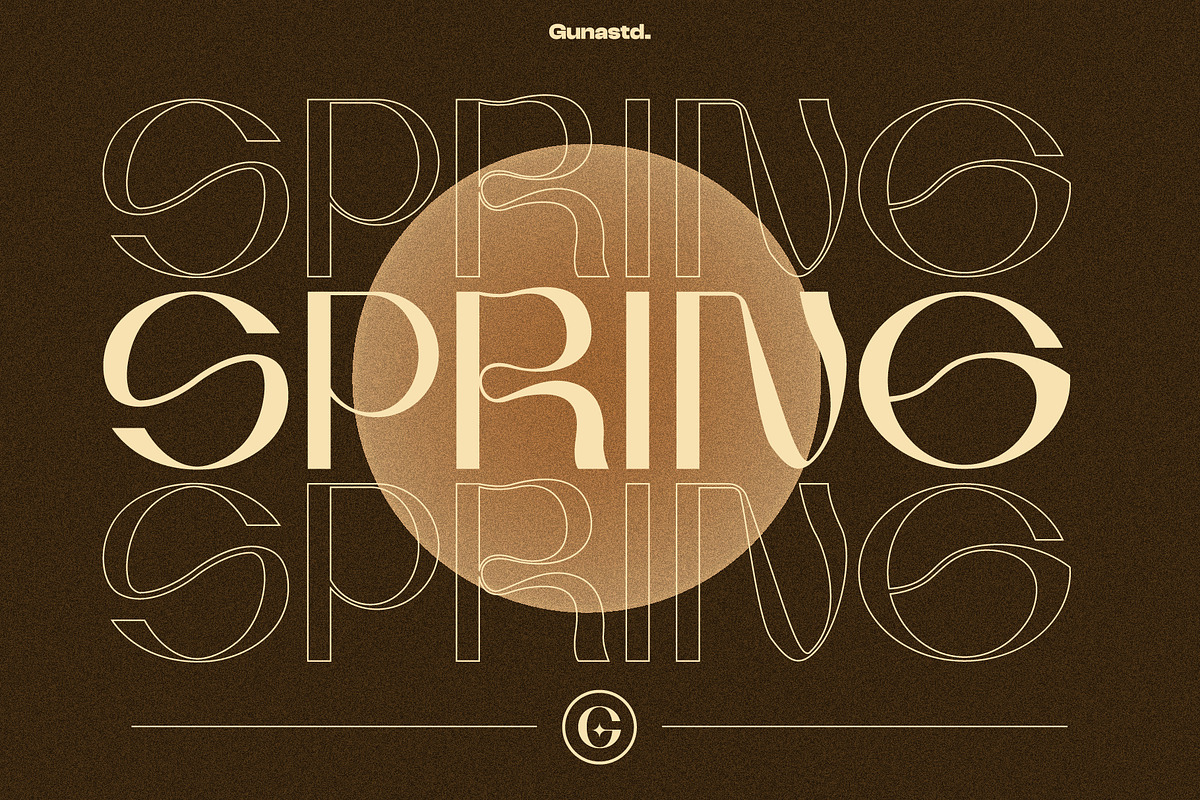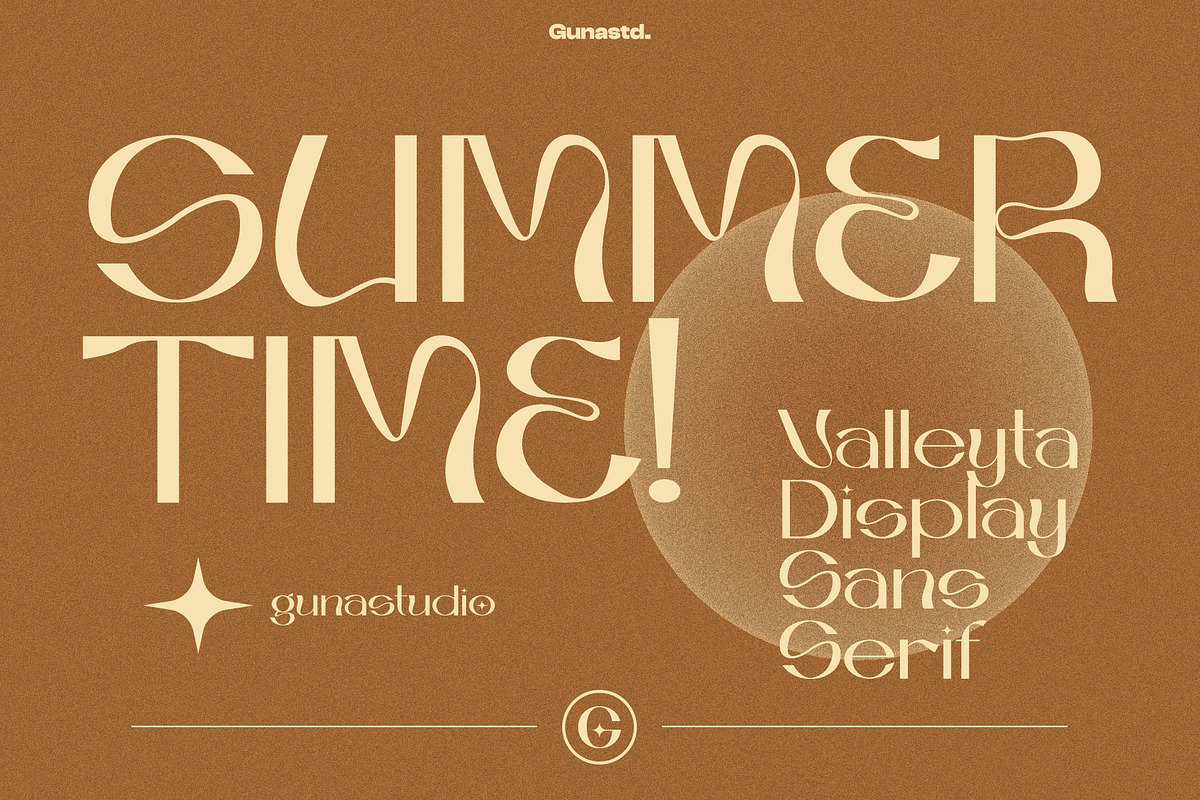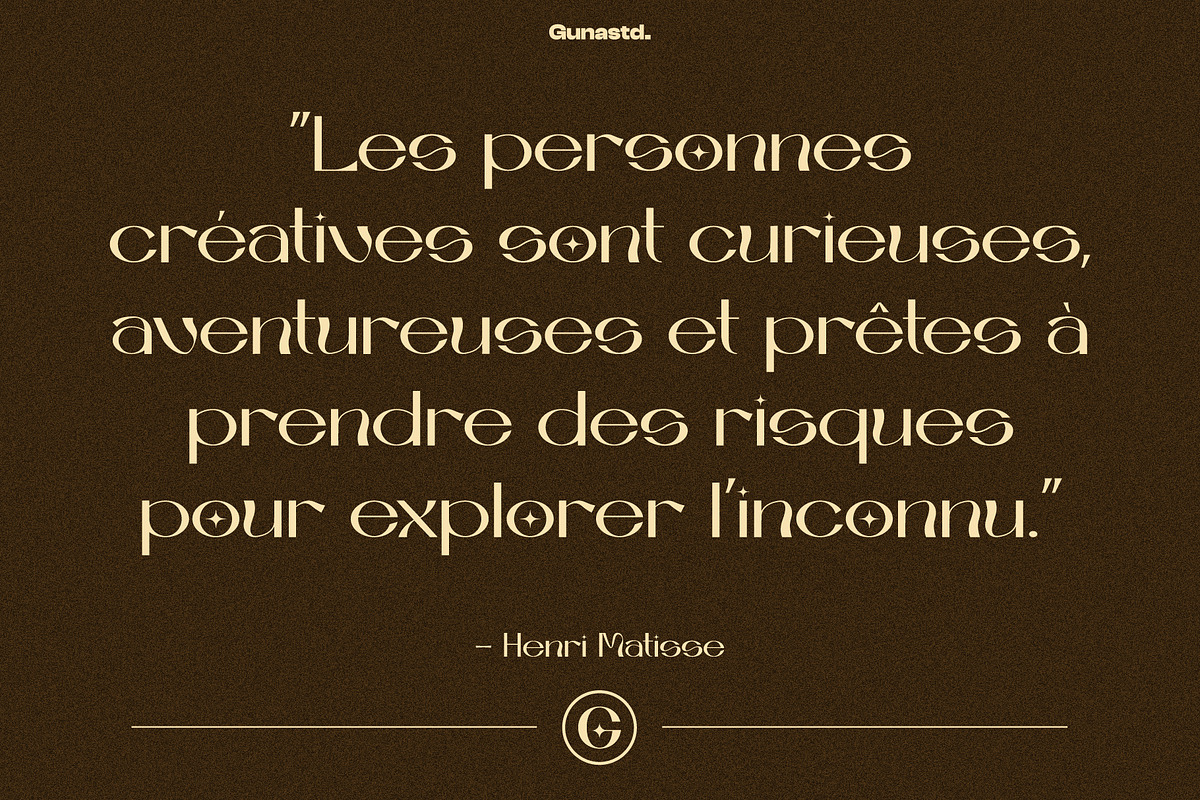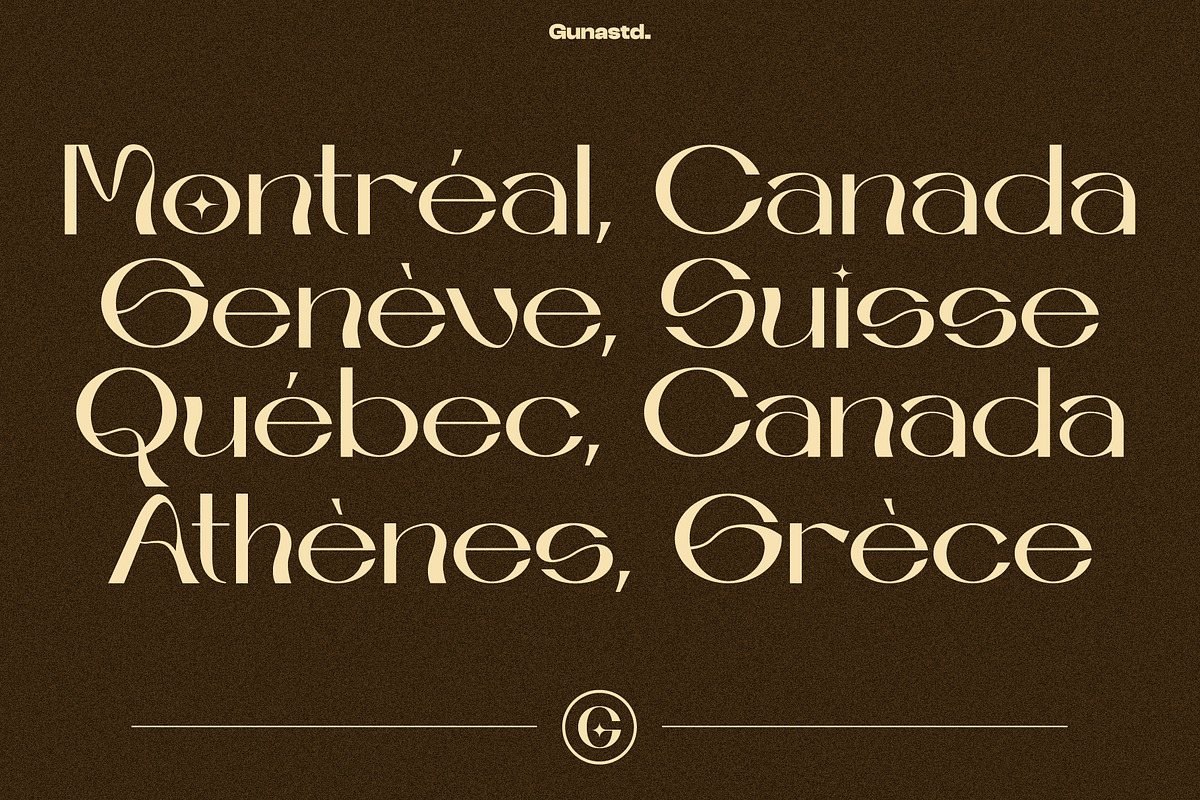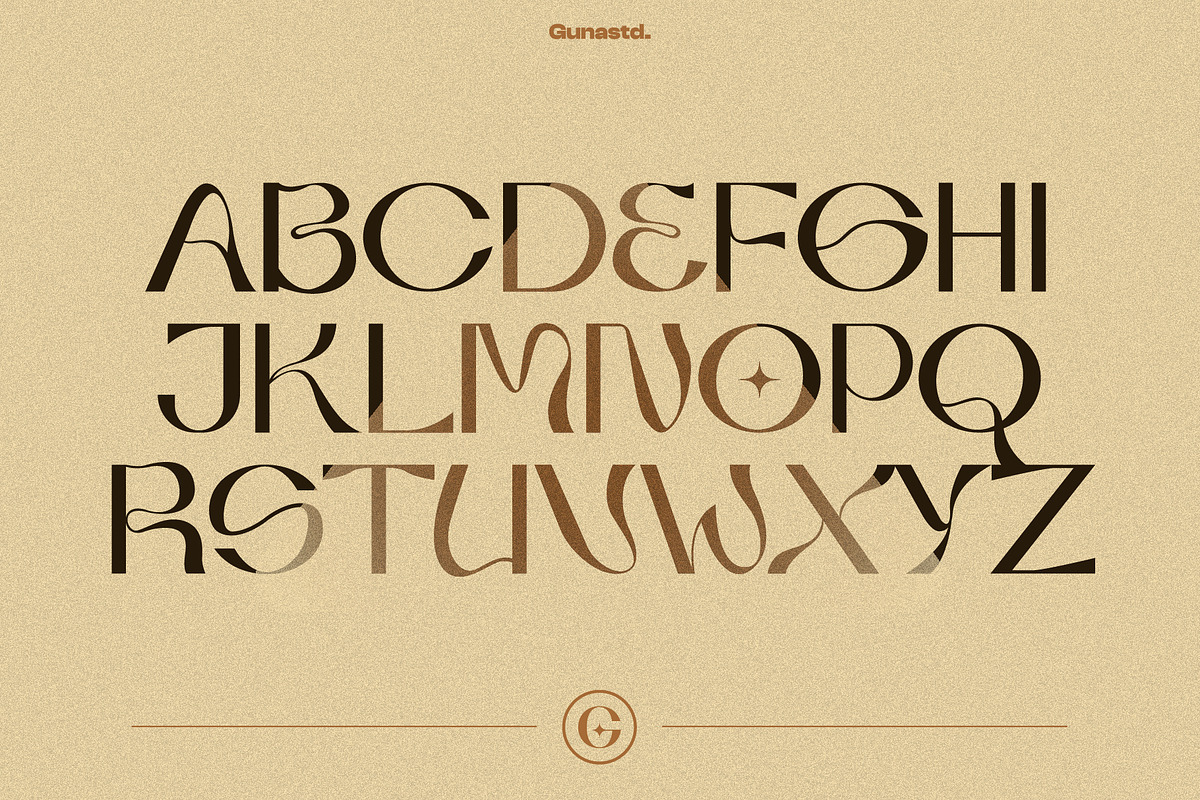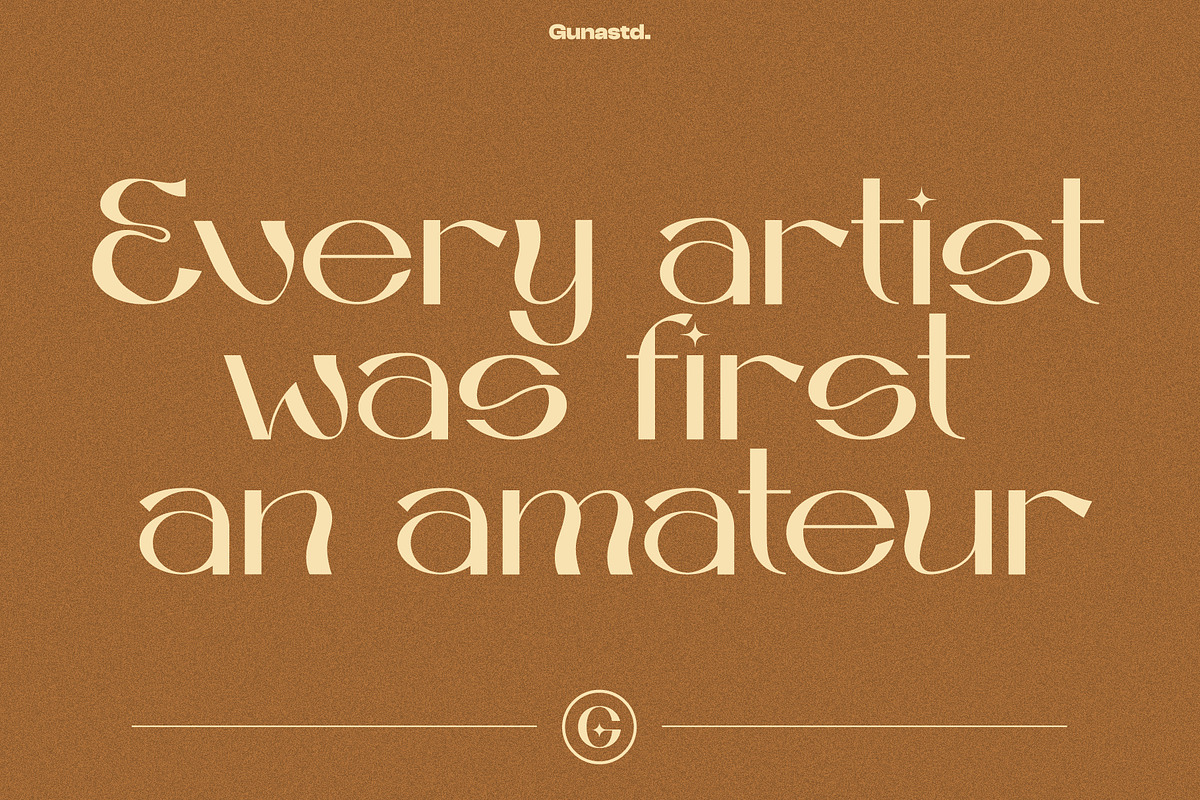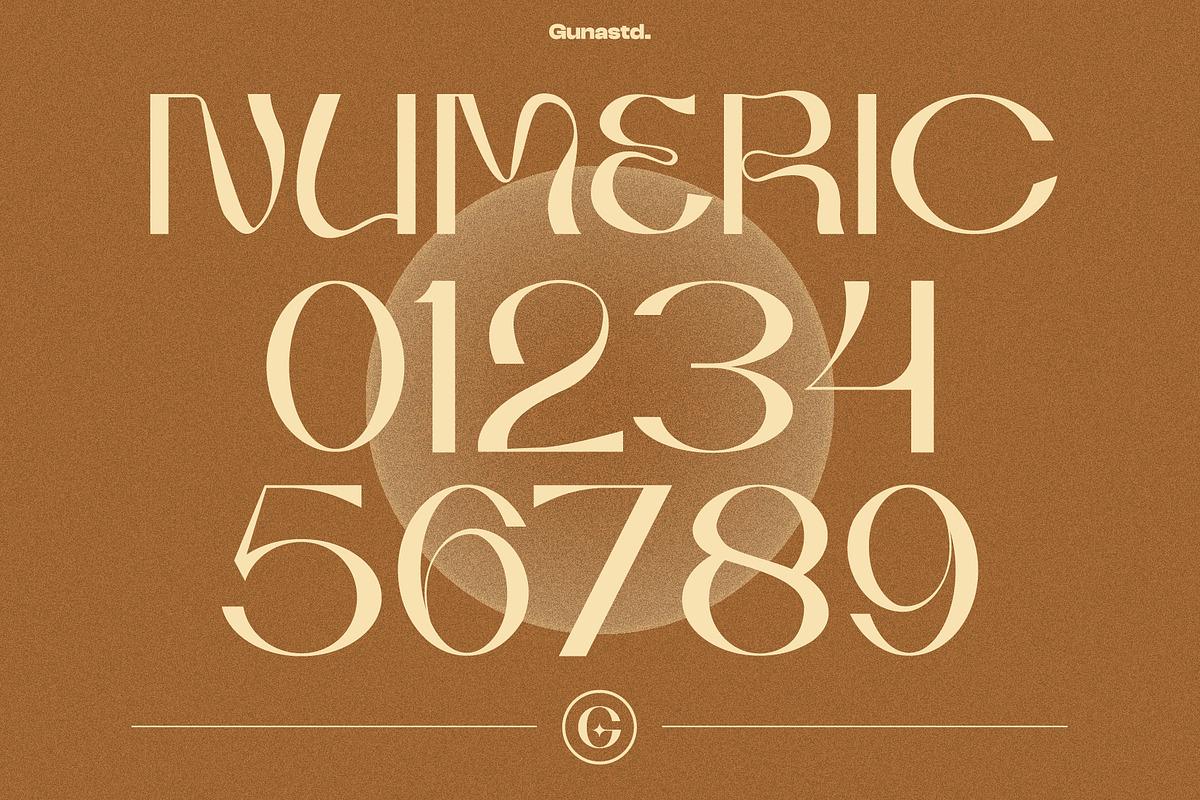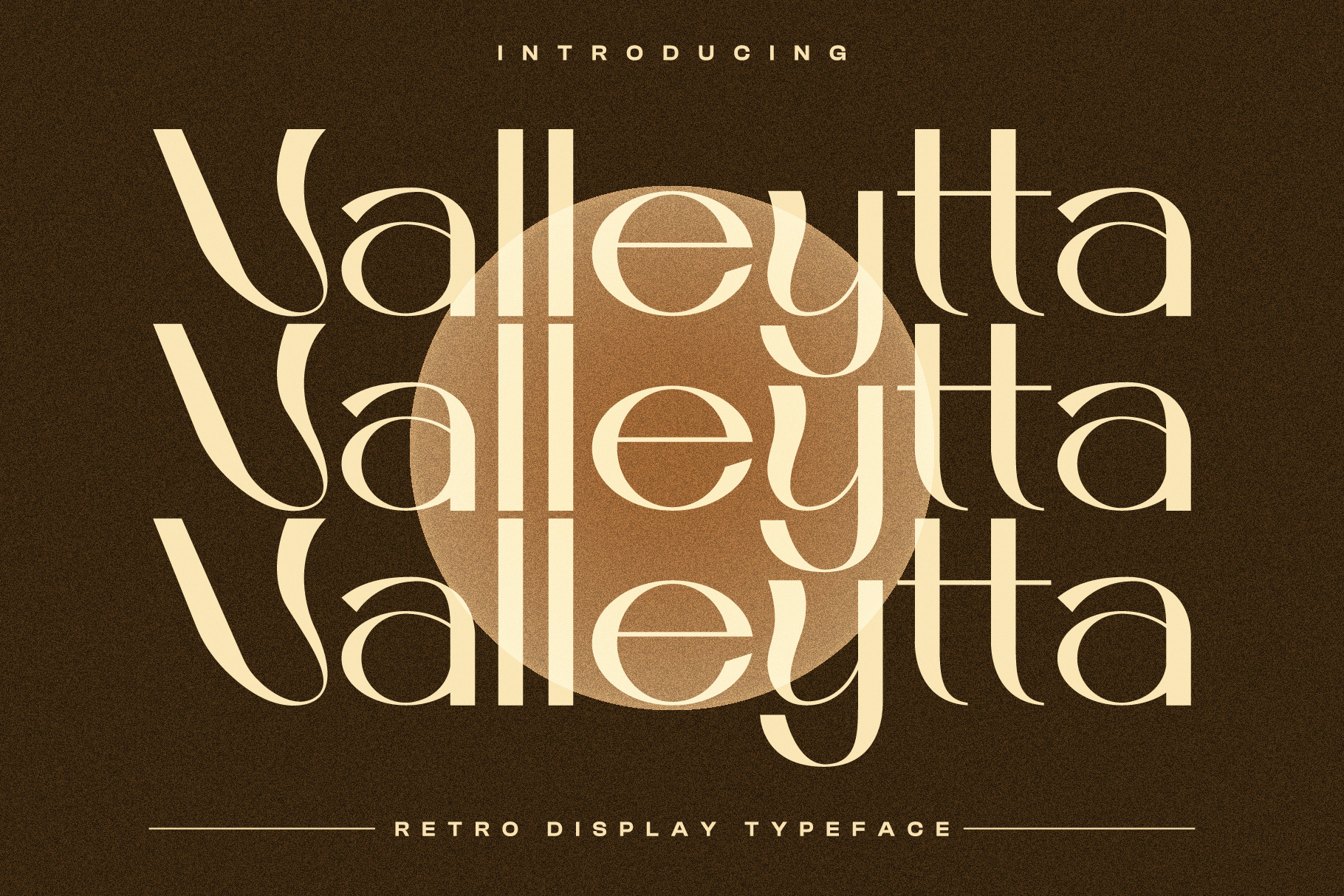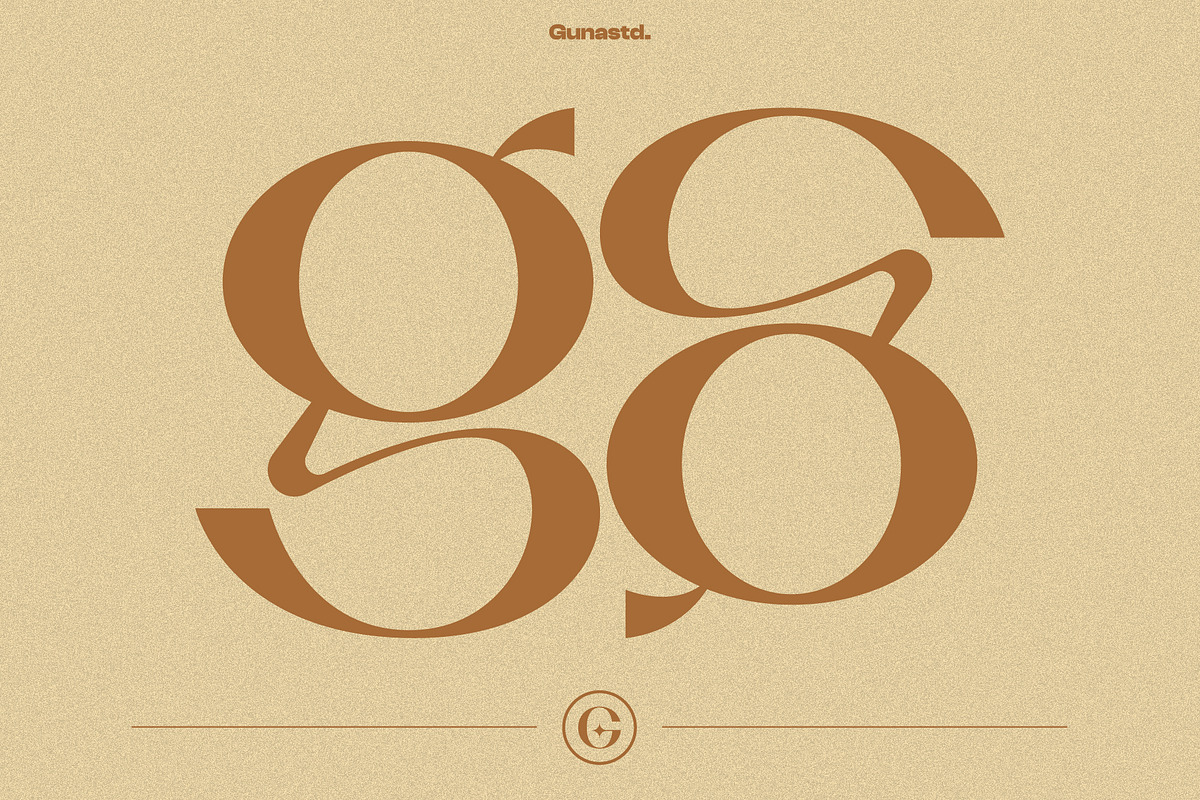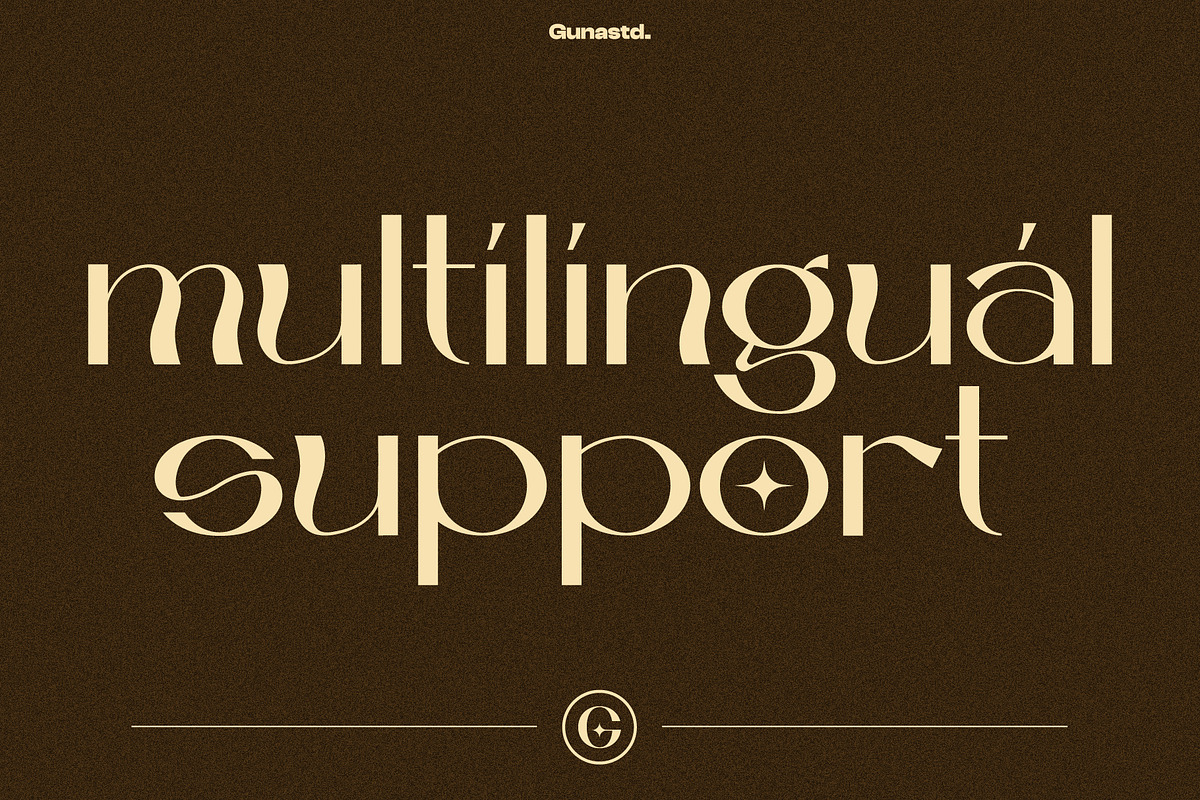
Valleytta Retro Display Typeface
Proudly Introducing the New Font: Valleytta Retro Display Typeface
Valleytta Retro Display Typeface will be perfect for many different projects such as logos & branding, invitation, poster, flyer, wedding designs, social media posts, advertisements, product packaging, product designs, label, photography, watermark, special events or movie poster title just like what I did on the preview above.